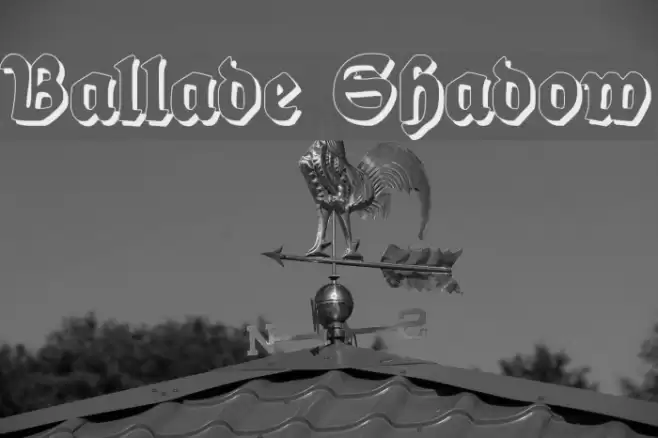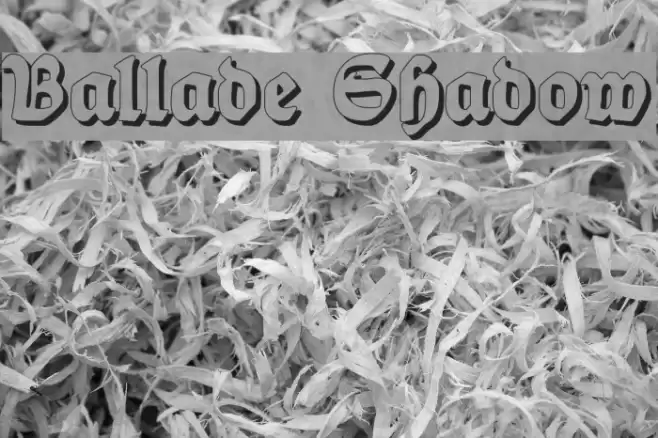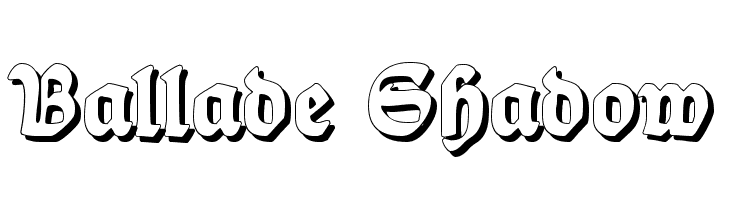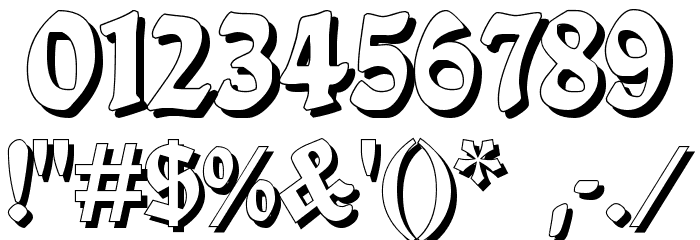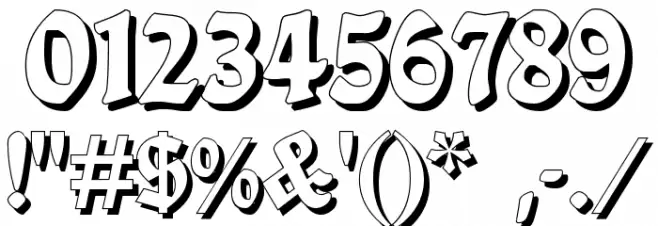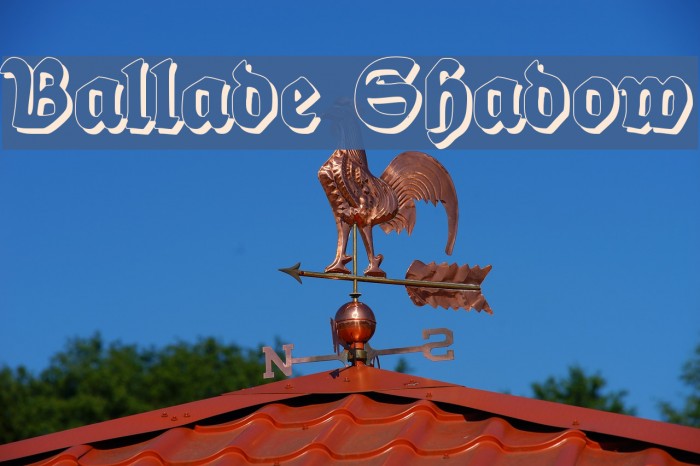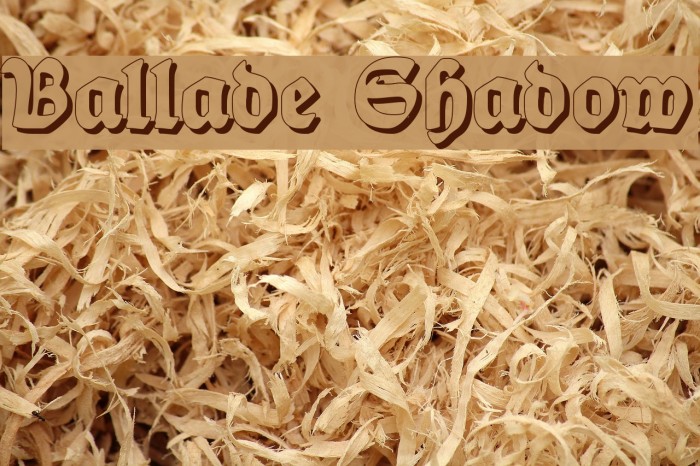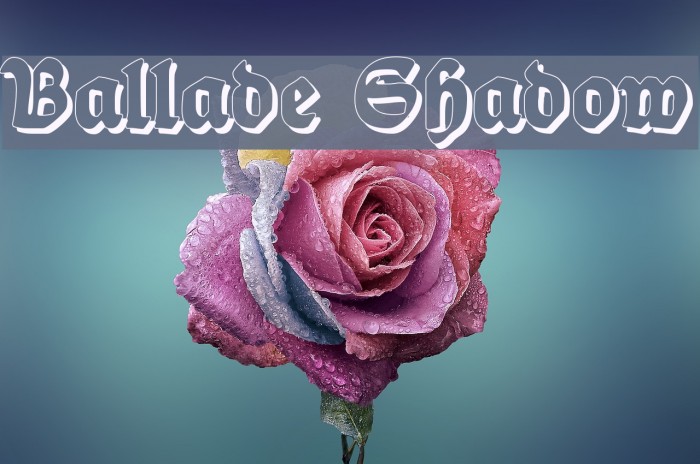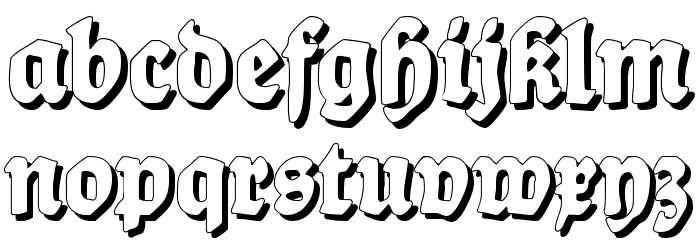
Ballade Shadow Font
Ballade Shadow Description
This font features a bold, dramatic style with a shadow effect that gives it a three-dimensional appearance. The characters are reminiscent of traditional blackletter typefaces, with sharp, angular lines and a gothic influence. The uppercase letters are particularly ornate, while the lowercase letters maintain a consistent style that complements the uppercase. The numerals and special characters follow the same design principles, ensuring uniformity across all glyphs. The shadow effect adds depth and a striking visual impact, making it suitable for eye-catching designs.
A bold, shadowed blackletter-style font with a dramatic, three-dimensional effect from Uncategorized fonts.
- Proposed Projects: Ideal for use in posters, logos, book covers, and any design requiring a gothic or medieval aesthetic.